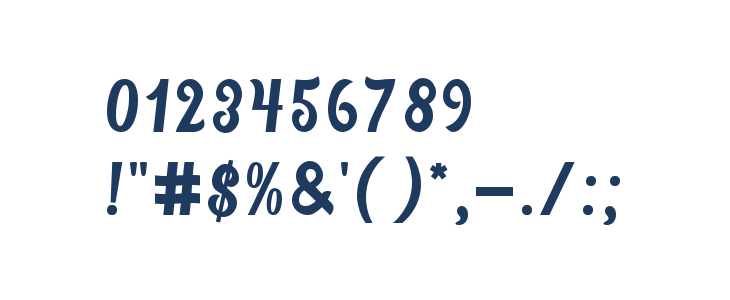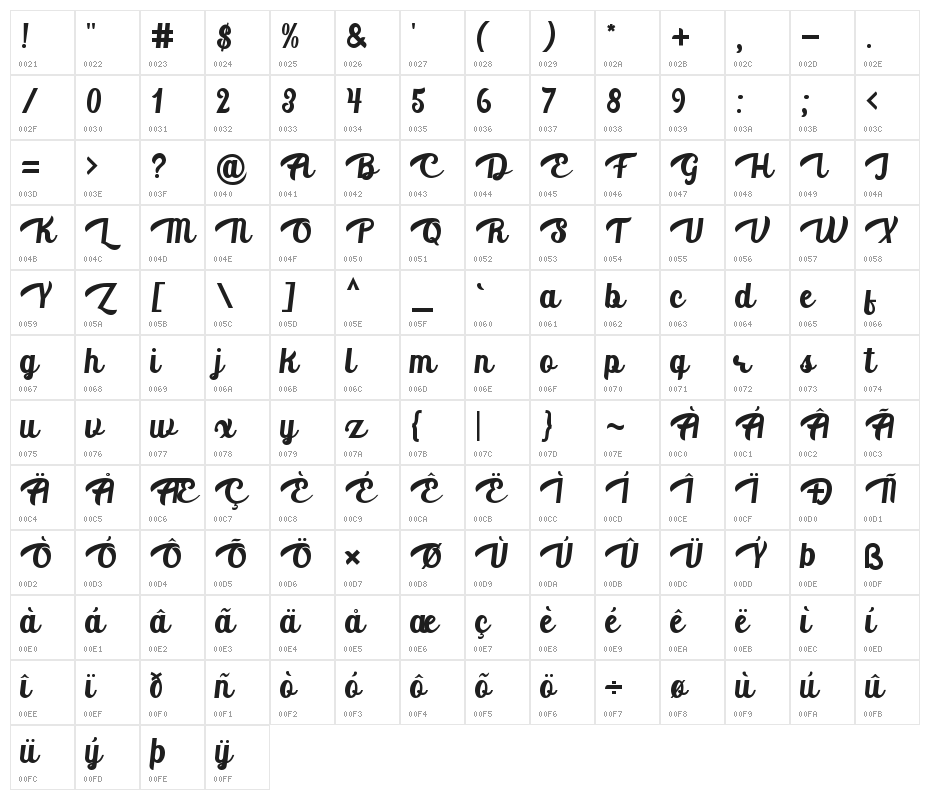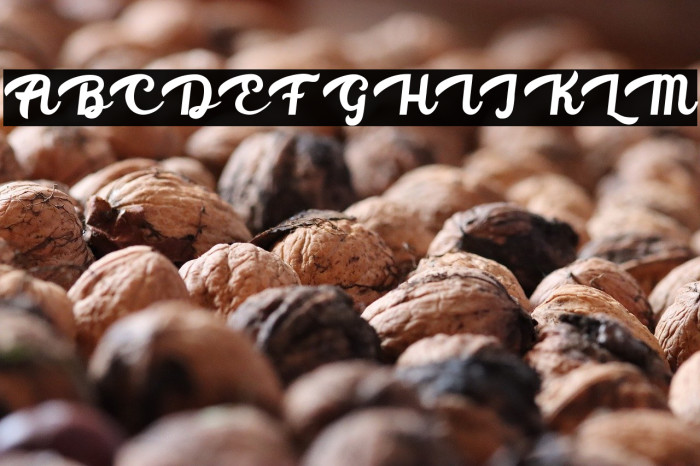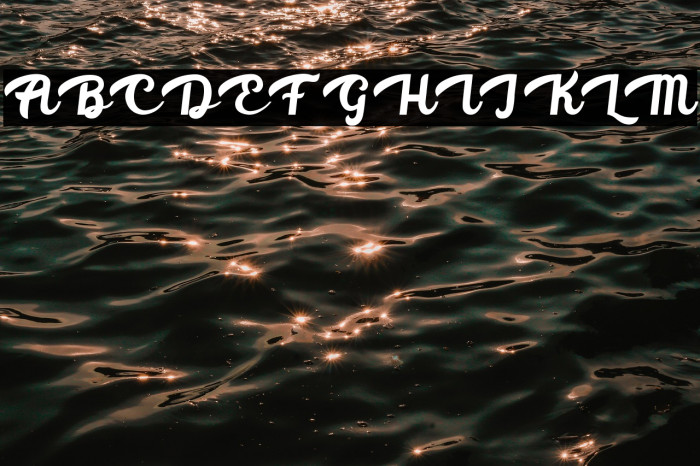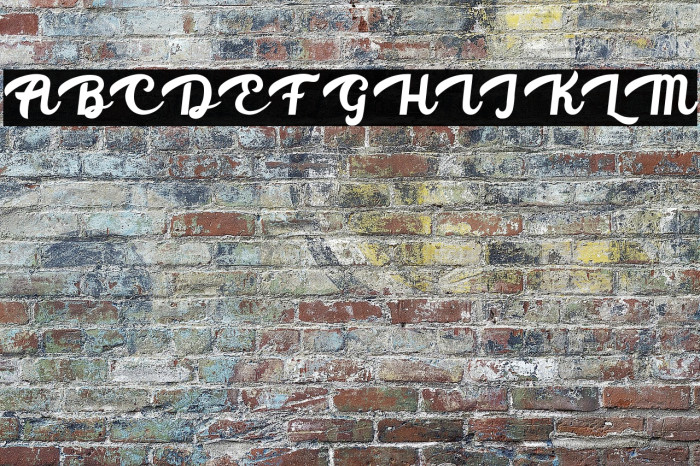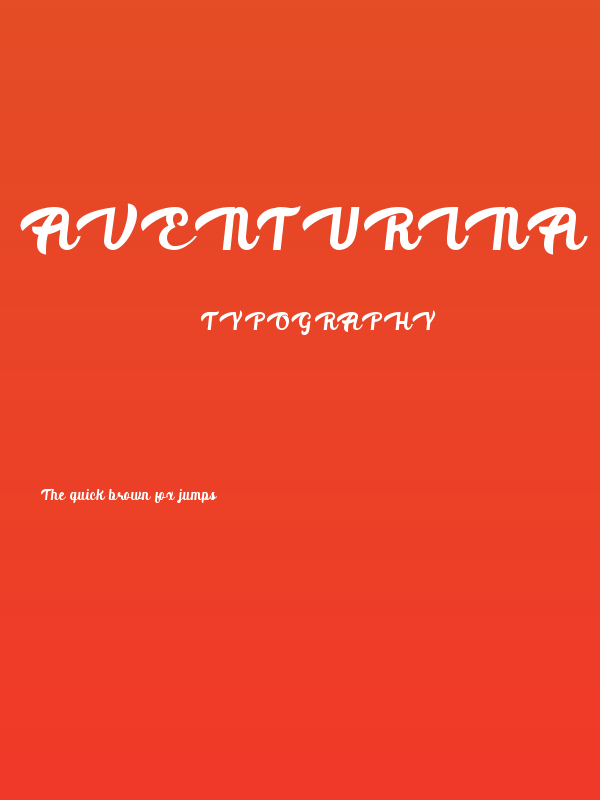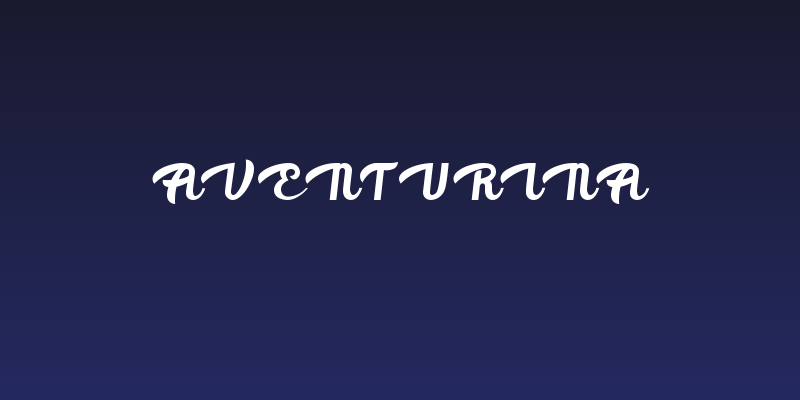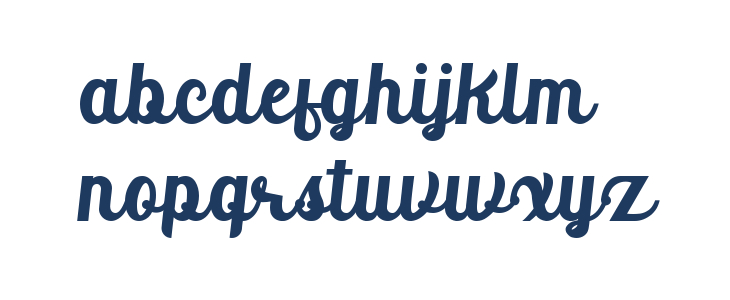
Aventurina Font
Aventurina Description
This font features a bold, cursive style with smooth, flowing lines that give it a dynamic and elegant appearance. The uppercase letters are slightly more ornate, with subtle flourishes that add a touch of sophistication. The lowercase letters maintain a consistent flow, making them easy to read while still retaining a stylish flair. The numerals are rounded and bold, complementing the overall design. Special characters are well-integrated, maintaining the font's cohesive look. This font's boldness and fluidity make it suitable for a variety of creative applications.